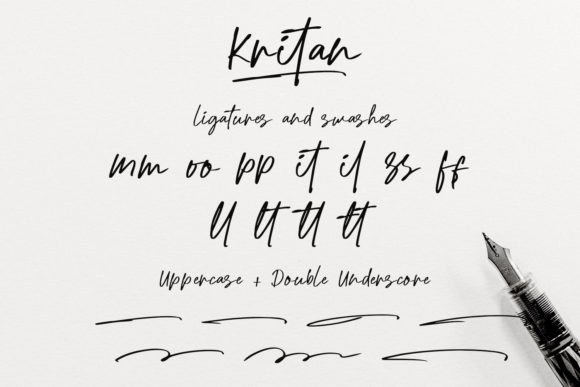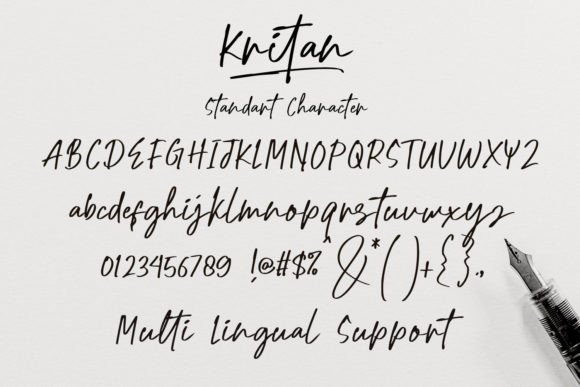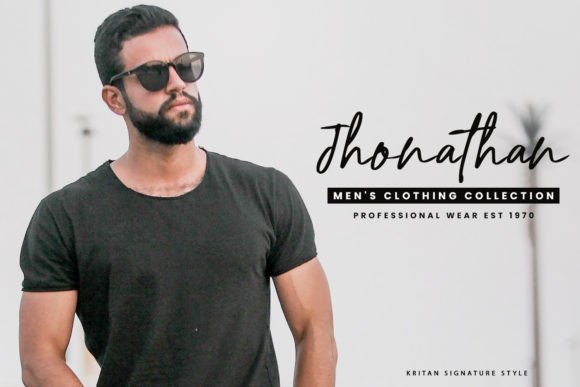
Introduction to Kritan Font
Have you ever found yourself staring at a blank canvas, trying to bring your creative vision to life, only to be met with a sea of generic fonts that just don’t cut it? We’ve all been there. But what if I told you there’s a font that can elevate your design from ordinary to extraordinary? Welcome to the world of Kritan Font, a stylish script font that exudes glamour and sophistication.
Whether you’re a seasoned designer or a newcomer to the world of creative projects, Kritan Font is a valuable resource that’s sure to become a go-to design staple. Its fluid and elegant strokes create a luxurious and refined appearance that’s perfect for branding, packaging, and editorial designs. And the best part? It’s a free download, allowing you to experiment with its possibilities without breaking the bank.
With a transparent background and high-quality design, Kritan Font is the perfect addition to any project. So why settle for a generic font when you can make a statement with Kritan Font?
Key Features of Kritan Font
- High-quality design resource suitable for creative projects, including logos, graphics, and typography.
- Transparent background, allowing for easy customization and layering in design projects.
- Supports a wide range of languages, making it a versatile font for international design projects.
- Designed with precision and attention to detail, ensuring a crisp and clear appearance at high resolutions (up to 300 DPI).
- Perfect for use in digital design, print media, and web development, due to its clean and modern aesthetic.
Honest Review: Kritan Font
As a designer, I’m always on the lookout for high-quality design resources to elevate my creative projects. Recently, I came across the Kritan Font, and I’m excited to share my honest review with you.
- ✨ Elegant and modern design: The Kritan Font has a sleek and sophisticated look that’s perfect for a variety of design projects, from branding to digital products.
- ✨ High-quality fonts: The font is available in several weights and styles, ensuring that you’ll find the perfect fit for your project.
- ✨ Transparent background: The font also features a transparent background, making it easy to customize and integrate into your design.
- ⚠️ Limited language support: Unfortunately, the Kritan Font only supports a limited number of languages, which may be a drawback for designers working on international projects.
- ⚠️ Limited customization options: While the font is high-quality, it may not offer the level of customization that some designers are looking for.
Overall, I’m impressed with the Kritan Font and its potential to elevate your design projects. While it may have some limitations, its elegant design, high-quality fonts, and free download make it a valuable resource for designers of all levels.
How to Use Kritan Font
Kritan Font is a high-quality design resource ideal for creative projects. It’s a versatile and elegant font that can add a touch of sophistication to any design.
Tips for Getting the Most Out of Kritan Font
For the best results, use Kritan Font on a transparent background to create a clean and modern design. Experiment with different font sizes and colors to add visual interest to your project.
Kritan Font is ideal for a variety of creative projects, including:
- Business cards and marketing materials
- Social media graphics and ads
Does the Kritan Font have a transparent background?
Yes, the Kritan Font comes with a transparent background, making it easy to use with any design element. This feature allows you to layer the font over images, shapes, or other design elements, giving you complete control over your creative project.